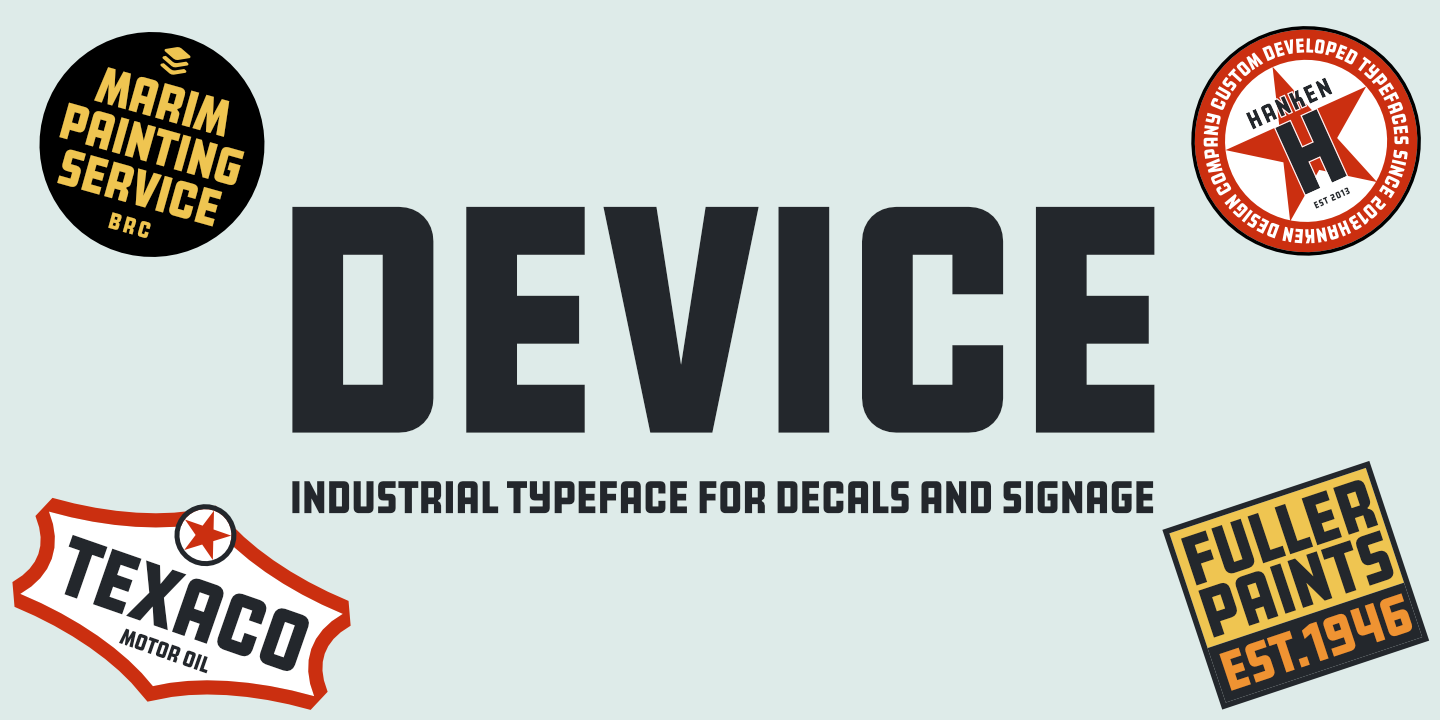
Device Font is perfect for cutting-edge technology interfaces, modern gadget product packaging, innovative electronics branding, futuristic device displays, smart home automation systems, contemporary tech startup logos, digital device advertising, advanced robotics company marketing, high-tech equipment documentation, and progressive technology conference materials. Its technological precision character makes it ideal for projects requiring digital innovation and modern device authenticity.
What makes Device Font exciting is its intelligent embodiment of technological precision and digital innovation with systematic letterforms and device-inspired characteristics that capture the essence of modern technology and electronic device excellence. The font features precise geometric proportions, tech-inspired details, and systematic character construction that create authentic digital atmosphere and technological appeal. Its innovative personality brings modernity and technical credibility to contemporary designs while maintaining the clarity essential for tech communications and device interface presentations. The carefully crafted digital elements ensure technological accuracy while preserving the distinctive character that embodies the essence of device innovation and technological excellence.
Device Font comes in multiple technological variations including Light, Regular, Medium, Bold, and Digital styles. Each family member maintains the distinctive tech character while offering comprehensive flexibility for device typography and technology brand system development. The complete font family includes alternate characters, tech symbols, and digital decorative elements that provide extensive tools for creating immersive technological design experiences and authentic device brand storytelling.
Whether you're developing technology brands, device manufacturers, or digital innovation projects, Device Font Free Download provides the technological precision needed to communicate with tech-savvy audiences and digital device users who appreciate innovation and modern technology excellence. The font's digital appeal resonates with tech professionals, device designers, and innovation enthusiasts seeking authentic technological credibility and device sophistication. Its comprehensive character set includes tech symbols and digital marks, making it perfect for creating complete technology brand systems and memorable device storytelling across diverse tech applications and innovation-focused design projects that celebrate technological advancement and digital device excellence.